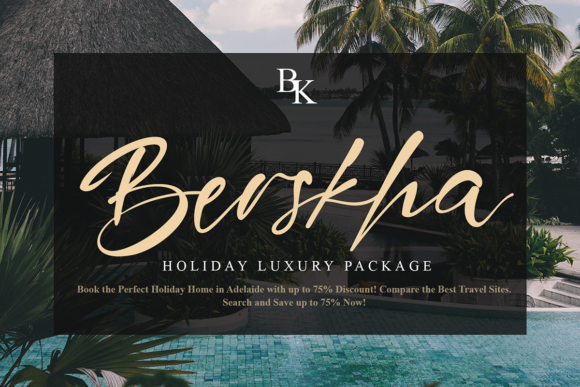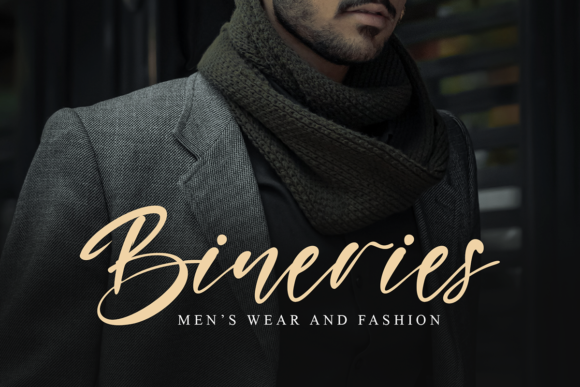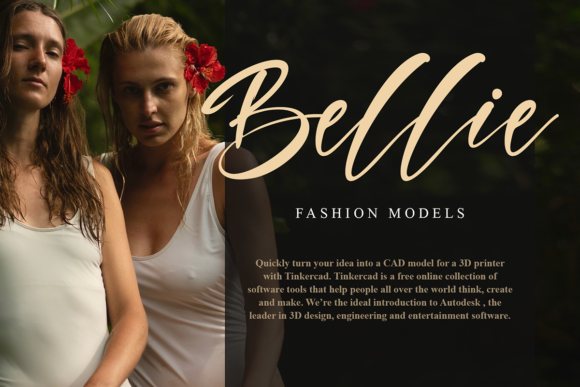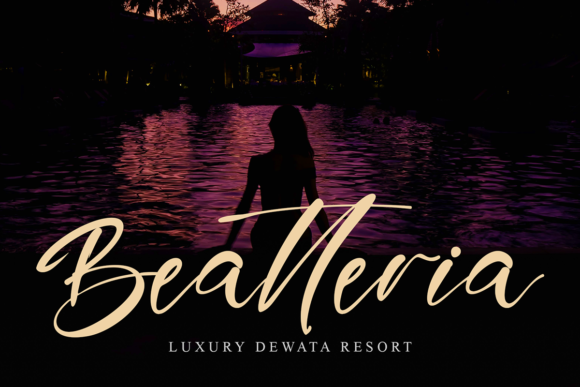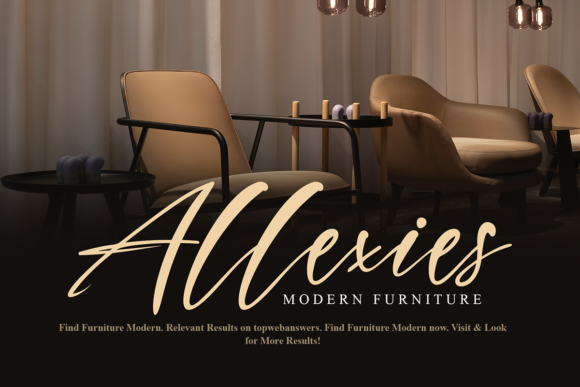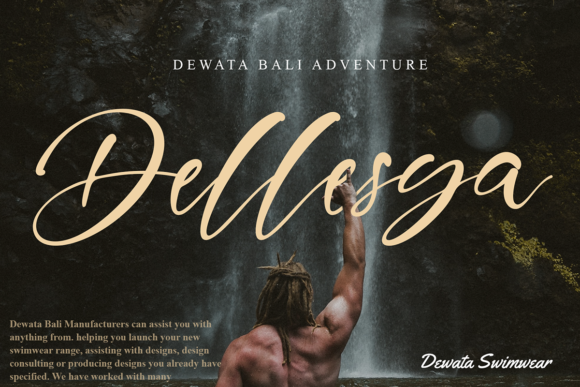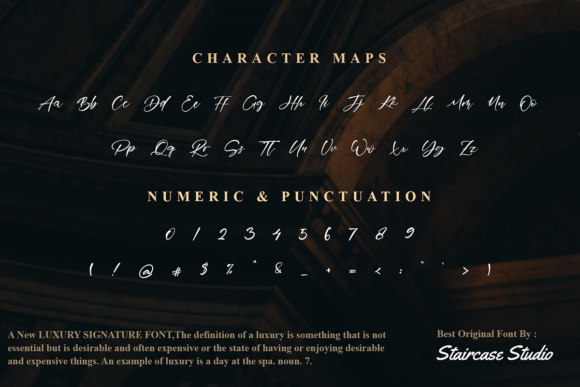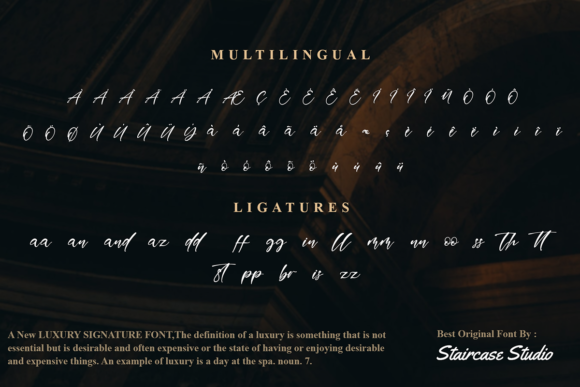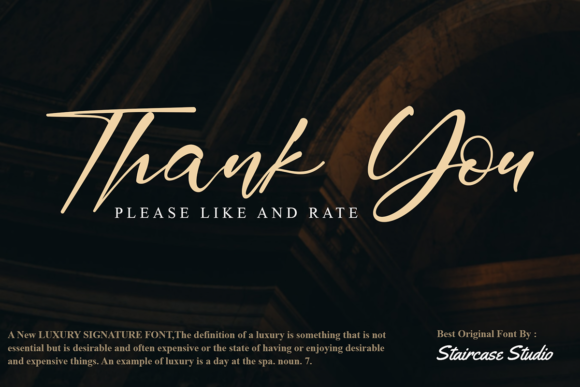
Maverick Font
About Maverick Font
Maverick is a luxurious and signature styled script font. It looks lovely on a variety of design ideas that require a trendy touch. Add it confidently to your projects, and you will love the results.